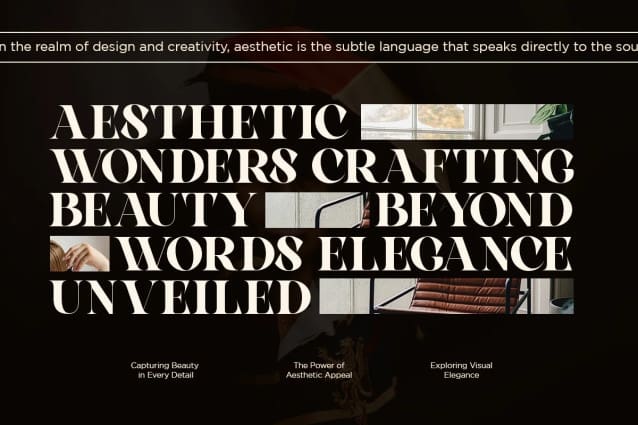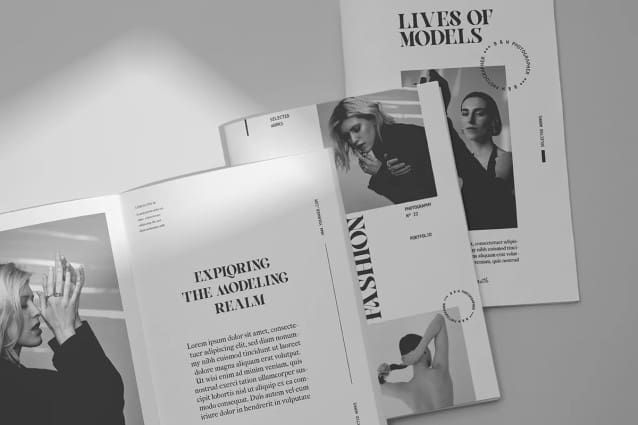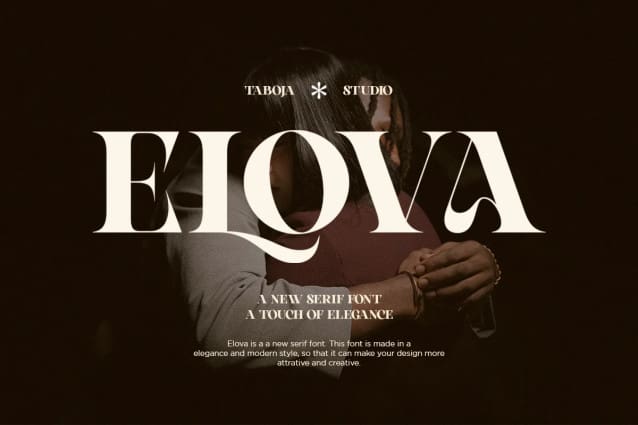
Elova Font
Elova fonts exude authority and clarity with their robust strokes and prominent serifs. They command attention effortlessly in prominent titles, delivering impactful statements, and enhancing graphic designs with a bold and dependable presence. Whether used in print or digital media, serif bold fonts convey a sense of strength and reliability, making them an ideal choice for projects requiring a bold and commanding aesthetic.